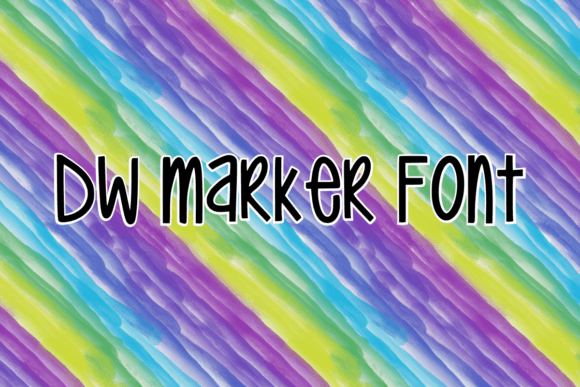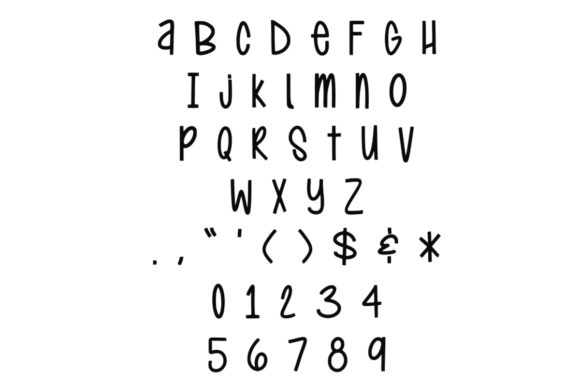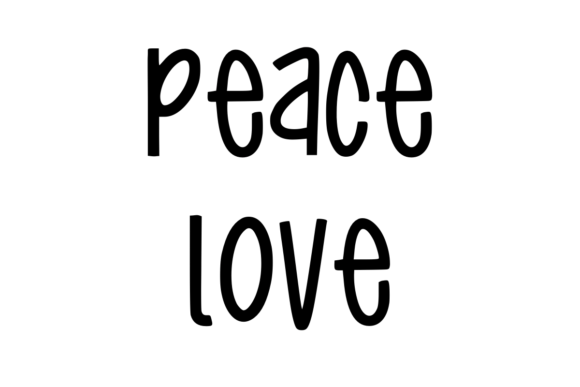
Script Fonts Dw Marker 0 169 FacebookTwitterPinterestWhatsApp 1 of 3 Dw Marker Poster 2... Dw Marker Poster 3... About Dw Marker is a modern, friendly and kind font. Whether you’re using it for crafts, social media posts, presentations, or school-related projects, this font is designed to make them stand out! DOWNLOAD NOW